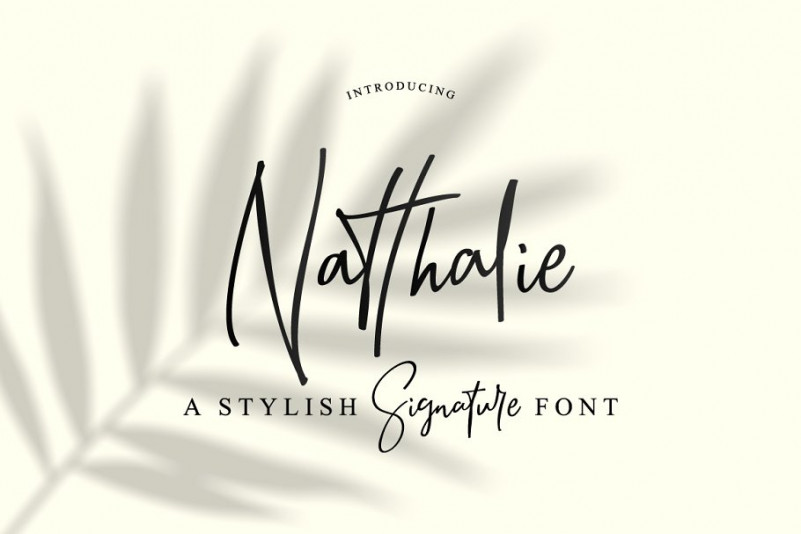
Natthalie Signature Font
Natthalie Signature Demo Font
Hello buddy! Natthalie Font– is a modern and clean signature font, is a modern signature font with the current handwriting style. It is designed and shared by pointlab. Natthalie Signature a new fresh & modern script with a handmade calligraphy style, decorative characters and a dancing baseline! So beautiful on invitation like greeting cards, branding materials, business cards, quotes, posters, and more!!